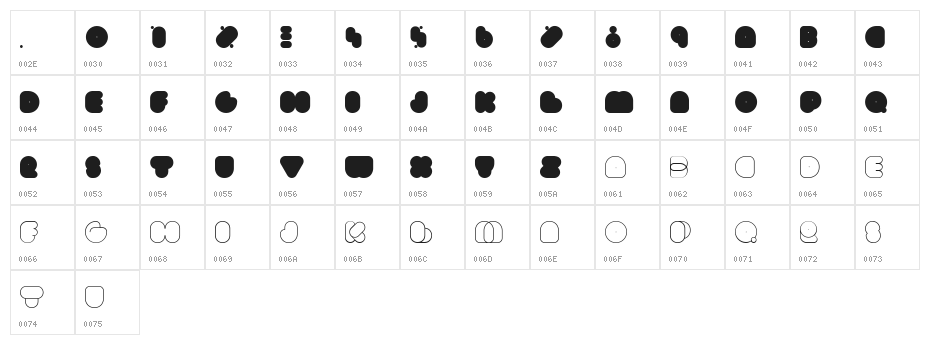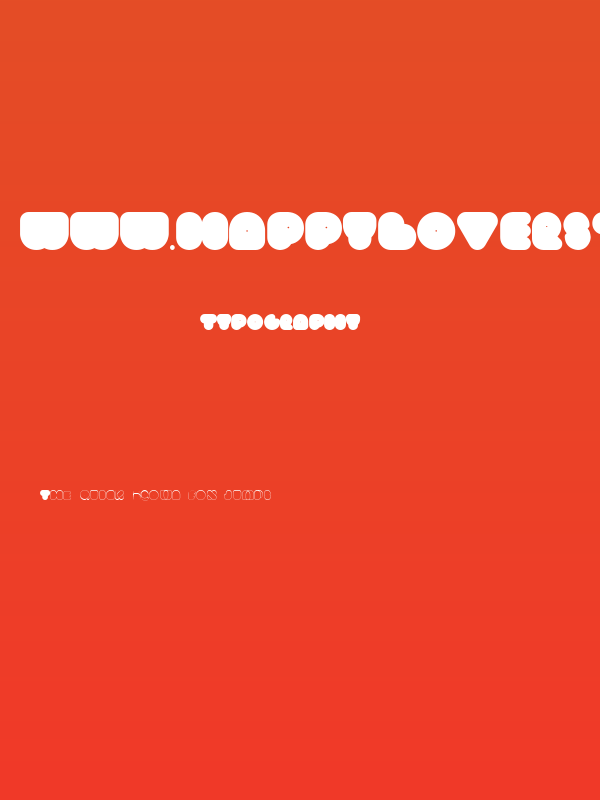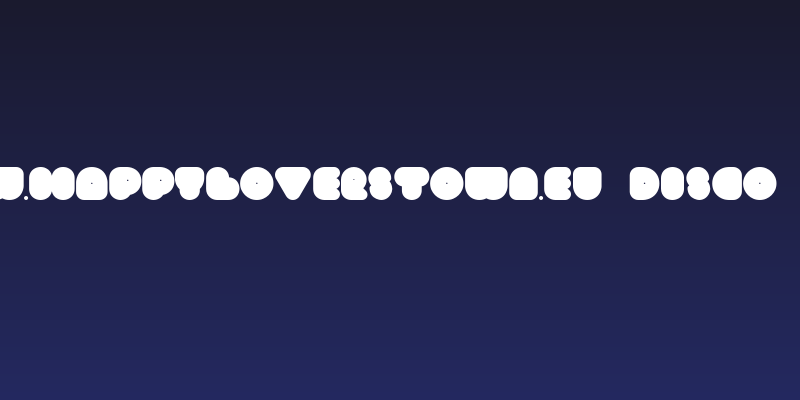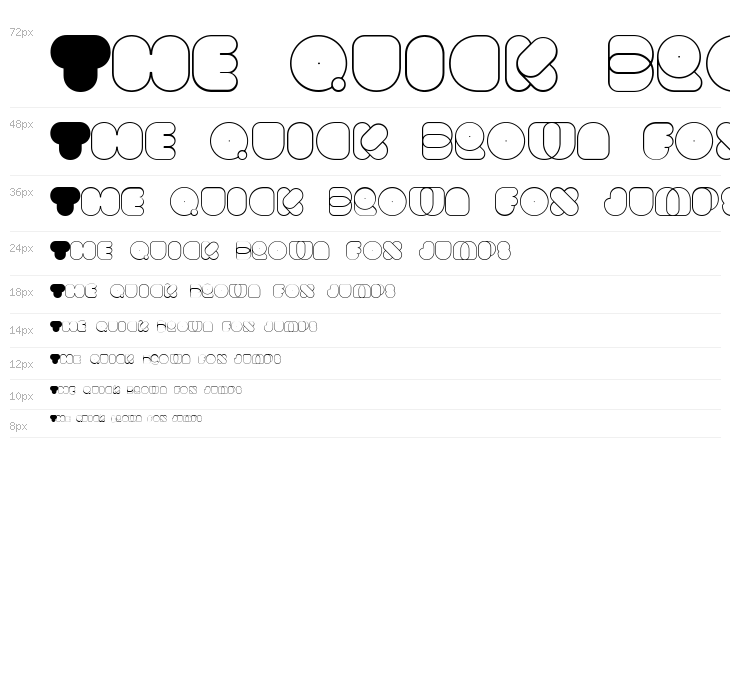
www.happyloverstown.eu_Disco_Fat Font
www.happyloverstown.eu_Disco_Fat Description
This font features a bold, rounded style with a playful and modern aesthetic. The uppercase letters are characterized by their thick, bubble-like forms, creating a sense of fun and whimsy. The lowercase letters maintain this rounded appearance, offering a cohesive look across the alphabet. The numbers and special characters follow the same design principles, ensuring uniformity throughout. The font's unique style makes it stand out, with its heavy weight and smooth curves providing a distinctive visual impact.